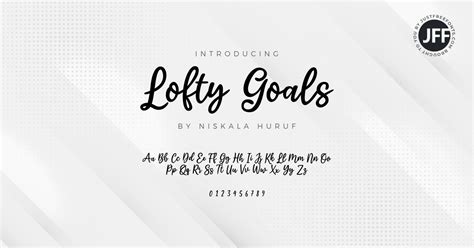
Lofty Goals Font. Web lofty goals script font. It’s a sweet, whimsical, flowing and bold script font.
Web lofty goals script font. It’s a sweet, whimsical, flowing and bold script font.
Web lofty goals script font. It’s a sweet, whimsical, flowing and bold script font. Web lofty goals script font.